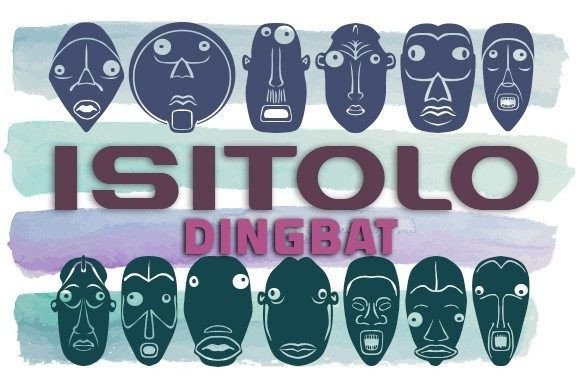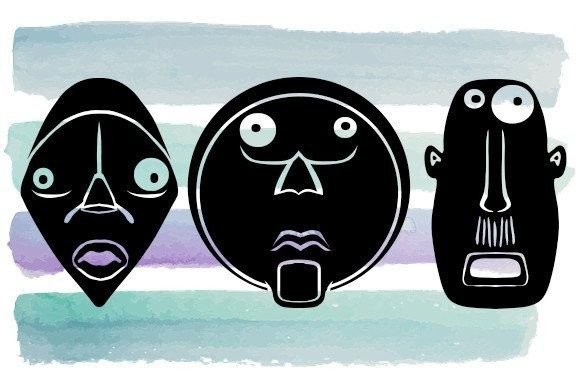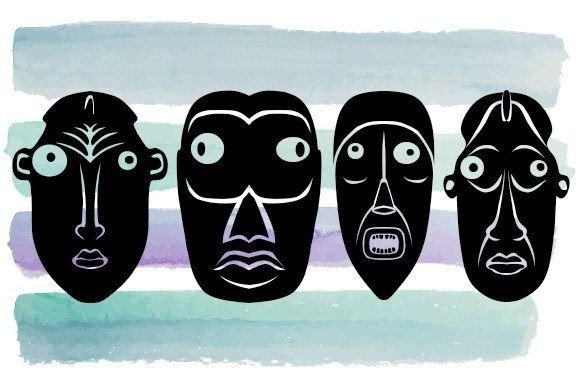
Isitolo Font
ABOUT ISITOLO FONT
“Isitolo” is an exceptional dingbat font that offers a captivating collection of creative masks. This font is designed to add a unique and artistic touch to your projects, making it a perfect choice for various creative endeavors.
With “Isitolo,” you have a wide array of mask designs at your disposal. These masks can range from traditional to abstract, allowing you to explore different artistic styles and concepts. Whether you’re looking for tribal masks, theatrical masks, or imaginative and whimsical masks, “Isitolo” has something to offer.
When used in your projects, “Isitolo” can create a sense of intrigue and mystery. The masks add a layer of depth and symbolism, inviting viewers to delve deeper into the meaning and story behind your designs. Whether you’re creating posters, flyers, or any other visual medium, “Isitolo” can make your project visually captivating and thought-provoking.
The versatility of “Isitolo” allows you to explore various creative applications. You can use the masks as decorative elements, focal points, or even as standalone artworks. Their intricate details and unique designs make them visually striking and impactful.
“Isitolo” is an excellent choice for projects that require a touch of creativity and artistic flair. Whether you’re designing for personal expression, cultural events, or creative promotions, this dingbat font can help you achieve a distinct and memorable visual identity.
So, embrace the captivating masks of “Isitolo” and incorporate them into your projects. Let their creativity and symbolism shine through, adding a touch of intrigue and artistic beauty to your designs.